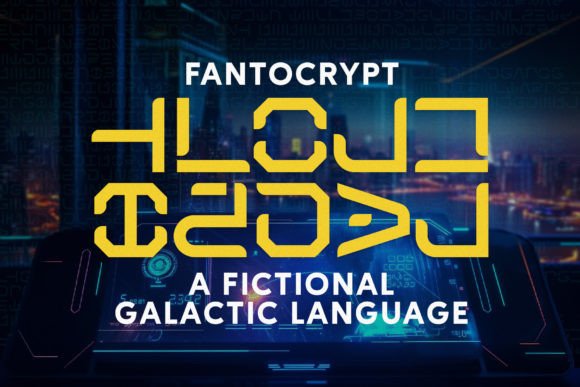
Fantocrypt Font: Unveiling the Mysterious Alien Alphabet
The Fantocrypt font is a mysterious and intriguing typeface that has captured the imagination of designers, writers, and enthusiasts of the unknown. This enigmatic font is said to embody a secret language system from beyond our planet, comprising intricate shapes and symbols that are unlike anything seen on Earth. In this article, we’ll delve into the fascinating world of Fantocrypt, exploring its unique characteristics, hidden meanings, and the creative possibilities it offers.
The Origins of Fantocrypt
The Fantocrypt font is shrouded in secrecy, with its origins and purpose unknown to the general public. According to legend, this alien alphabet was discovered in an ancient, abandoned spacecraft or extraterrestrial artifact, which was said to contain cryptic messages and codes. The Fantocrypt font is believed to be a key to deciphering these messages, offering a glimpse into the language and culture of an advanced, extraterrestrial civilization.
The discovery of Fantocrypt has sparked intense interest and speculation among linguists, cryptographers, and science fiction enthusiasts. Some believe that Fantocrypt is more than just a font – it’s a gateway to understanding the universe and our place within it. Others see it as a tool for creative expression, allowing designers and writers to tap into the mystique of the unknown.
The Intricate Design of Fantocrypt
Each letter of the Fantocrypt font is carefully crafted to convey hidden meanings and messages that only the initiated can understand. The characters are intricately interconnected, forming a complex web of meaning and nuance. The curves and angles of each symbol are perfectly balanced to create a sense of harmony and balance in the overall design.
The Fantocrypt font features a range of unusual and captivating symbols, each with its own unique characteristics and symbolism. Some characters resemble ancient hieroglyphs or mystical runes, while others appear to be more futuristic and technological in nature. The font’s design is both captivating and intimidating, inviting users to explore its secrets and unravel its mysteries.
The Allure of Fantocrypt
Despite its otherworldly origins, Fantocrypt has a distinctive and unforgettable appearance that sets it apart from other fonts. Its enigmatic symbols and hidden meanings offer endless possibilities for exploration and discovery, making it a fascinating tool for creative projects. Whether used for science fiction novels, top-secret communications, or just really cool futuristic designs, Fantocrypt is a font that will keep its secrets safe.
Those who are drawn to the mysterious and unknown will be captivated by Fantocrypt. The font’s eerie and mystical aura makes it perfect for projects that require a sense of intrigue and suspense. Imagine using Fantocrypt to create a cryptic message or a mysterious logo that hints at a larger conspiracy or hidden truth.
Creative Applications of Fantocrypt
Fantocrypt offers a wide range of creative possibilities for designers, writers, and artists. Here are a few examples:
- Science Fiction Writing: Use Fantocrypt to create authentic, otherworldly communications, documents, or messages that add depth and realism to your science fiction stories.
- Cryptic Messages: Create mysterious messages or codes using Fantocrypt, perfect for puzzle games, treasure hunts, or cryptic advertisements.
- Futuristic Design: Incorporate Fantocrypt into your designs to add a touch of futurism and sophistication, ideal for tech companies, startups, or innovative products.
- Art and Illustration: Use Fantocrypt as a creative element in your artwork, combining it with other visual elements to create thought-provoking and visually striking pieces.
In conclusion, Fantocrypt is a mysterious and intriguing font that embodies a secret language system from beyond our planet. Its intricate design, hidden meanings, and otherworldly origins make it a fascinating tool for creative projects. Whether used for science fiction writing, cryptic messages, or futuristic design, Fantocrypt is a font that will keep its secrets safe, inviting users to explore its mysteries and unravel its codes.
As we continue to explore the possibilities of Fantocrypt, we may uncover new insights into the nature of language, communication, and the universe itself. For now, Fantocrypt remains an enigmatic and captivating font that inspires creativity, imagination, and a sense of wonder.